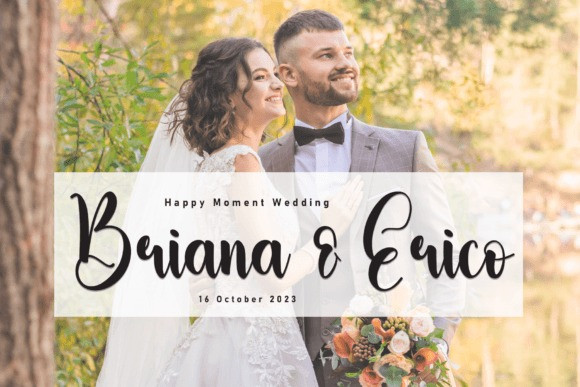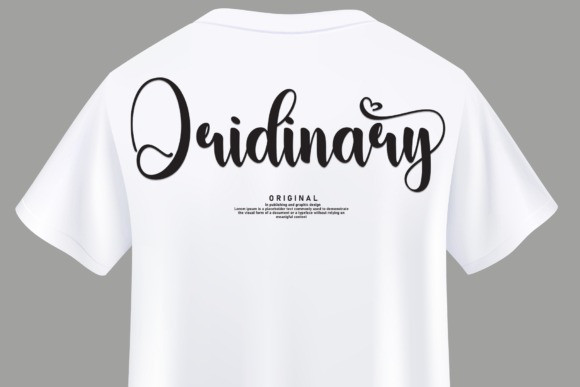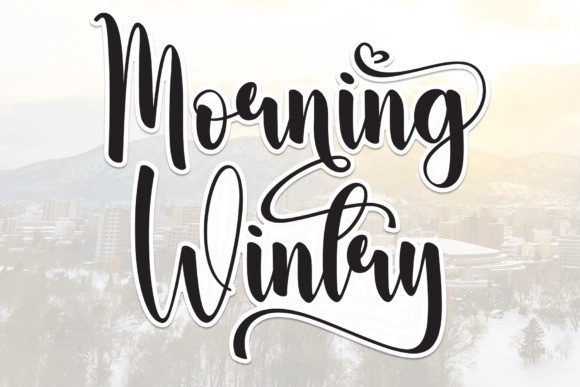
Morning Wintry Font
Morning Wintry Font is a sweet and friendly handwritten display font. Cute and fun, this font is ideal for writing wedding invitations, cards, or any other design that might need a fun touch!